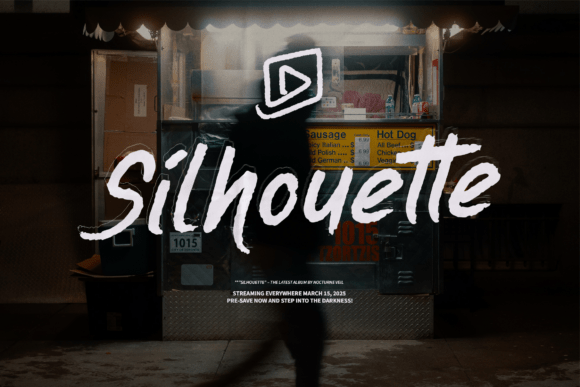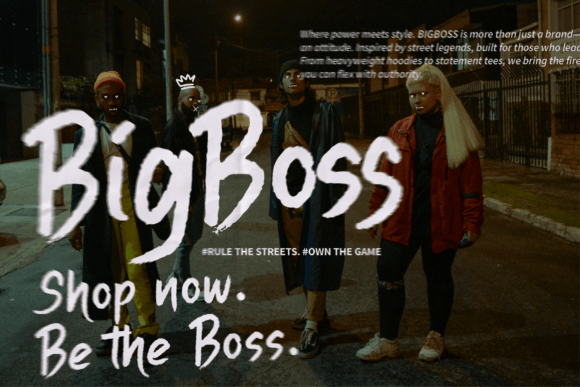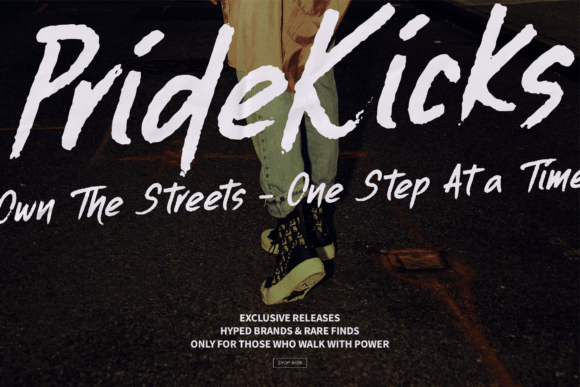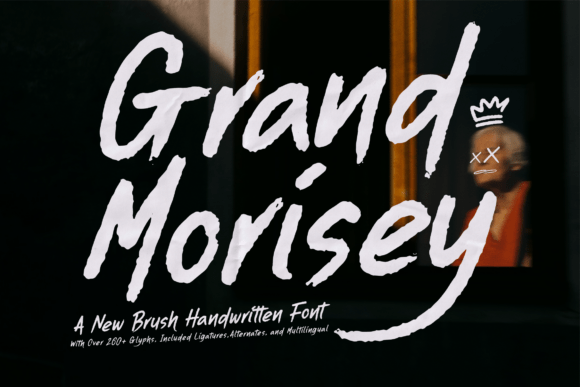
Introduction to Grand Morisey Font
Grand Morisey is a bold and expressive brush handwritten font with a raw, artistic edge.
Featuring dynamic strokes and natural textures, this font captures the energy of hand-painted lettering Perfect for branding, posters, album covers, streetwear, and creative projects, Grand Morisey adds a rebellious and modern flair to any design.
Key Features of Grand Morisey Font
Why Choose Grand Morisey Font?